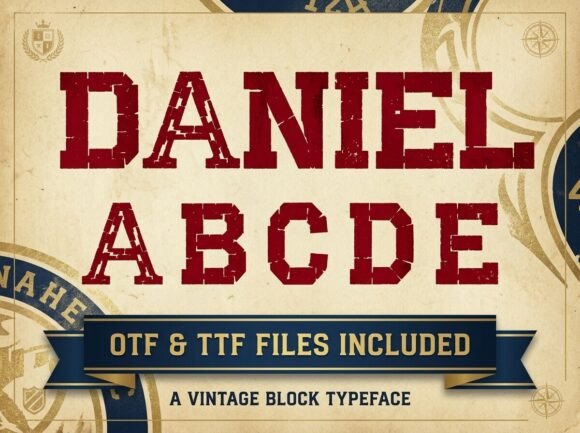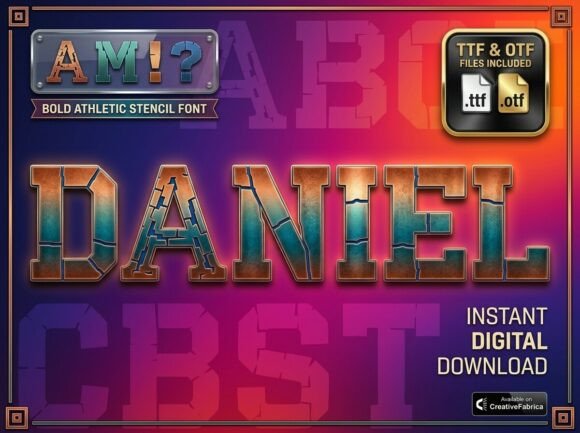
The Ultimate Design Game-Changer: Unleashing the Power of Daniel Font
I’ll never forget the time I was working on a project for a client who needed a bold, eye-catching font to make their brand stand out. I spent hours scouring the internet for the perfect font, but nothing seemed quite right. That was until I stumbled upon Daniel Font. This stunning decorative display font has been a game-changer for my design work, and I’m excited to share its power with you. ✨
A Font that Demands Attention
Daniel Font is a masterpiece of modern typography, designed to be the center of attention. With its unique artistic elements and strong visual personality, this font is perfect for creators who want to break away from the ordinary. Its intricate details and creative letterforms make it ideal for high-impact designs where the typography needs to do the talking.
What I Love About Daniel Font
- ✅ Versatility: Daniel Font is versatile enough for bold headlines, artistic logos, and creative packaging, while maintaining a professional and polished finish.
- ✨ Instant Wow Factor: This font adds an instant “wow” factor to any project, making it perfect for designers who want to make a statement.
- 🔥 High-Impact Designs: Daniel Font is designed for high-impact designs, making it perfect for posters, social media content, and branding projects.
While Daniel Font is an amazing font, there are a few quirks to be aware of: 🤔
- ⚠️ Legibility at Small Sizes: Daniel Font can be difficult to read at small sizes, so it’s best used for headlines and titles rather than body text.
- ⚠️ Glyph Limitations: Some users have reported limitations with certain glyphs, but this can be mitigated by using OpenType features and glyphs.
Daniel Font was inspired by the works of renowned typographers and designers who pushed the boundaries of modern typography. Its unique artistic elements and strong visual personality make it a true standout in the world of design.
| Font Name | Daniel Font |
| Author | kulturrno |
| What is Daniel Font best used for? | Daniel Font is best used for high-impact designs, such as posters, social media content, and branding projects. |
| Is Daniel Font suitable for body text? | No, Daniel Font is best used for headlines and titles rather than body text. |
In conclusion, Daniel Font is a game-changing decorative display font that’s perfect for designers, crafters, and creative hobbyists. Its unique artistic elements, strong visual personality, and versatility make it a must-have for any design project. With its intricate details and creative letterforms, Daniel Font is sure to add an instant “wow” factor to any project.